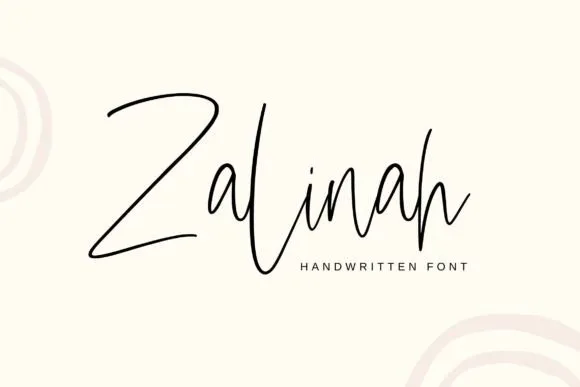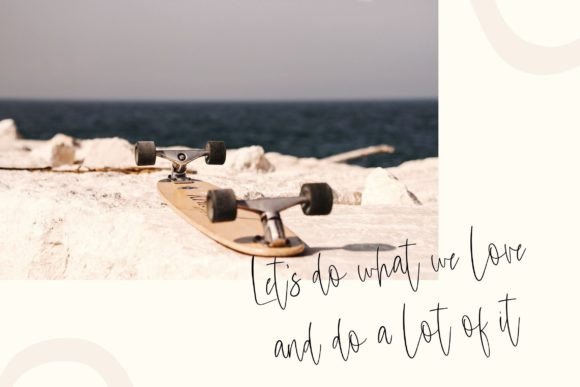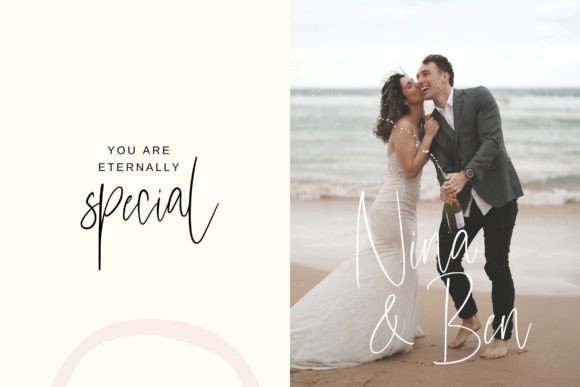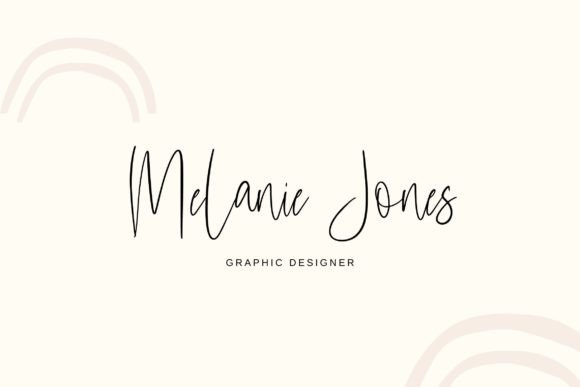
About Zalinah Font
Zalinah is a distinctive handwritten font that carries a signature style and playful, bouncing character. This versatile typeface is well-suited for a variety of design needs, making it an excellent choice for branding materials, promotional flyers, social media templates, business cards, logos, t-shirts, posters, and more. Zalinah’s unique charm and signature flair make it an ideal addition to your creative toolkit.
The handwritten nature of Zalinah adds a personal and authentic touch to your designs, enhancing the overall appeal and creating a connection with your audience. The bouncing character of the font injects a lively and dynamic quality, making it suitable for projects that require a sense of energy and movement.
Zalinah’s flexibility shines through in its compatibility with various design elements. Whether used on its own for a playful and casual look or combined with a sans-serif font to achieve a perfect balance, Zalinah adapts seamlessly to different design contexts, allowing you to create visually stunning and cohesive compositions.
Consider incorporating Zalinah into your branding projects where a unique and memorable typographic identity is crucial. Its signature style adds a touch of personality, making your brand stand out in a crowded market. Additionally, the font’s suitability for social media templates and promotional materials ensures that your online presence reflects a consistent and engaging visual identity.
In summary, Zalinah is more than just a font; it’s a design asset that brings a signature style and bouncing character to your projects. Whether you’re crafting business cards, logos, posters, or any other creative endeavor, let Zalinah be the font that adds a playful and distinctive touch to your designs. Explore its versatility and watch as it transforms your ideas into visually appealing and impactful creations.